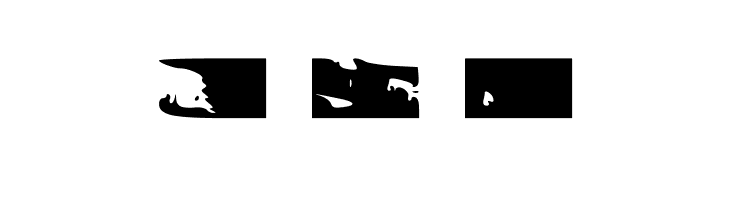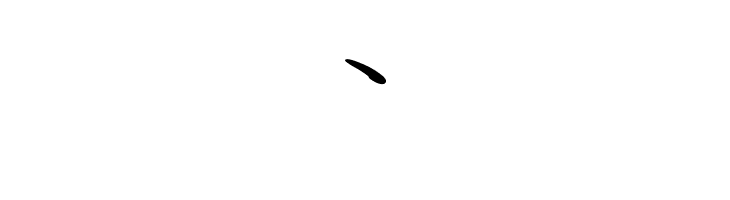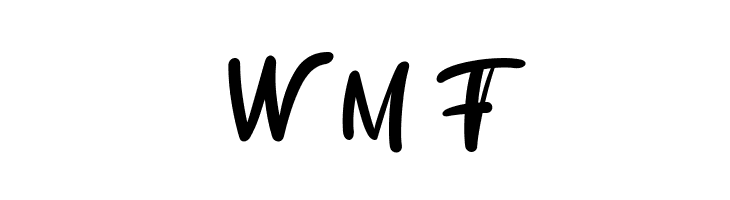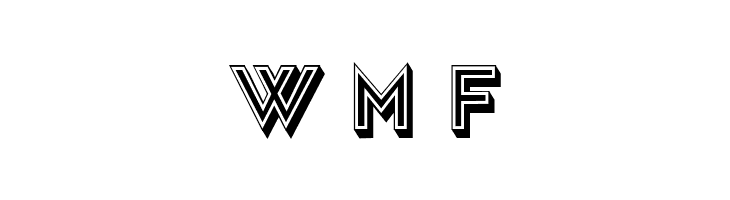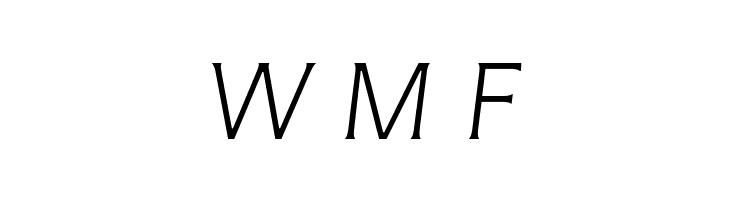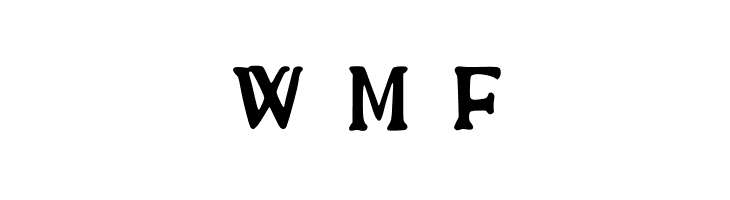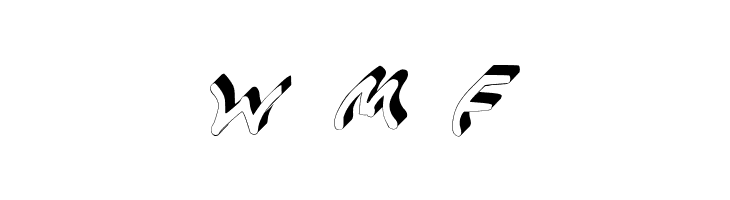
A classic serif font with elegant letterforms and a semi-bold weight.
A light, italic serif font with elegant, classic styling and moderate contrast.
An elegant serif font with a classic italic style and moderate contrast.
A bold, italic serif font with classic elegance and dynamic style.
A bold, geometric font with a modern and assertive style.
A playful, hand-drawn font with bold, rounded characters and a whimsical style.
A bold, angular font with geometric shapes and sharp edges.
A bold, vintage-inspired serif font with strong, blocky characters and a touch of elegance.
A bold, textured font with a vintage, industrial feel.
A bold, 3D decorative font with a playful and dynamic style.
An abstract, fragmented font with a modern, avant-garde style.
A bold, distressed font with a grunge-like, textured appearance.
An abstract, deconstructed font with bold, irregular strokes and a modern art vibe.
A classic serif font with high contrast and elegant letterforms.
A classic serif font with elegant, refined strokes and moderate contrast.
A classic serif font with elegant proportions and refined details.
A classic, elegant serif font with a graceful italic style.
A classic serif font with elegant, balanced letterforms and refined details.
A classic serif font with elegant, traditional letterforms and balanced design.
An ornate, decorative font with intricate floral embellishments.
A classic serif font with small caps and moderate contrast, ideal for formal and traditional designs.
An elegant, classic italic serif font with refined, flowing characters.
Ornate initials with intricate decorative patterns, exuding elegance and sophistication.
A traditional blackletter font with ornate, angular letterforms and a bold, dramatic style.
A bold, hand-drawn font with textured, irregular strokes for a dynamic look.
A bold, geometric font with a modern, industrial feel.
A bold, playful script font with a handwritten style.
A bold, geometric font with a three-dimensional Art Deco style.